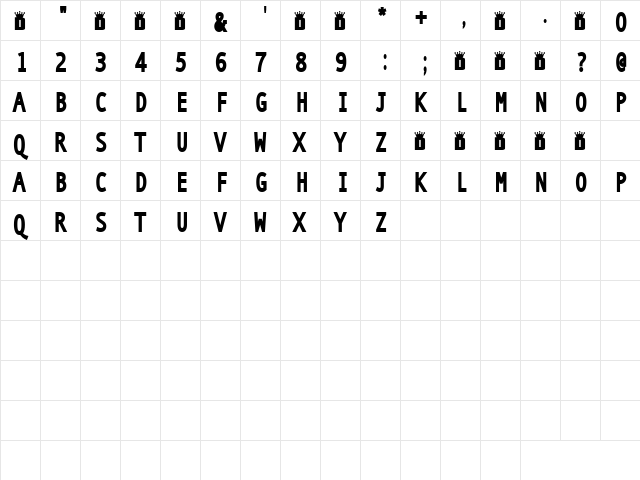
Kakadu Regular Font Preview
Kakadu Regular
Kakadu Regular Font Details
Design Context for Kakadu Typeface
Kakadu takes a measured approach to typography — its balanced proportions and neutral character make it a reliable workhorse for both digital and print work.
Pro Tip: Use Kakadu in both headline and body roles to test its range before committing to a single application.